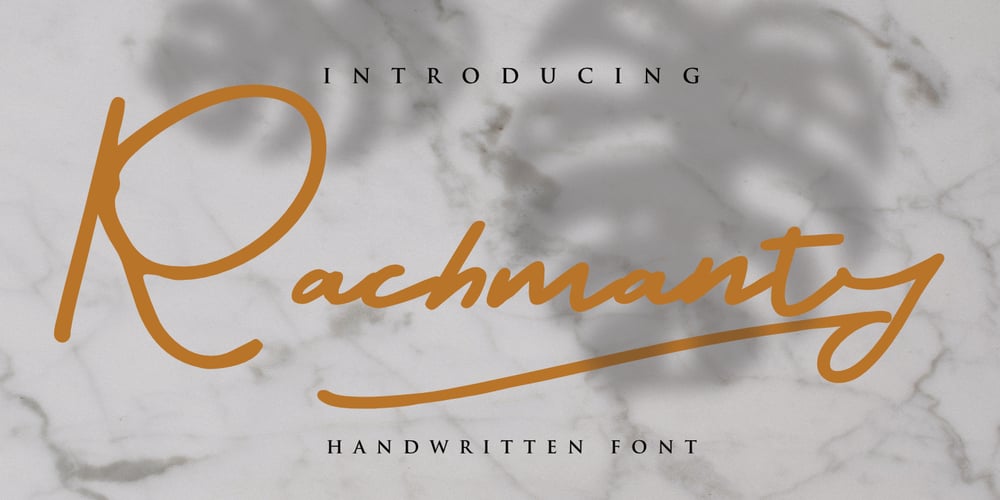
Rachmanty
Rachmanty font
Rachmanty Font Family was designed by Mariyana and published by Goodigital13. Rachmanty contains 1 styles and family package options. minimal fashion fonts designs. projects to the highest level, be it branding, headings, wedding, digital, movie, invitations, signatures, logos, labels, and much more! This font is readable, catchy, and easy to use. This font is suitable for quotes, logo designs, magazines, business cards, and many other design projects.